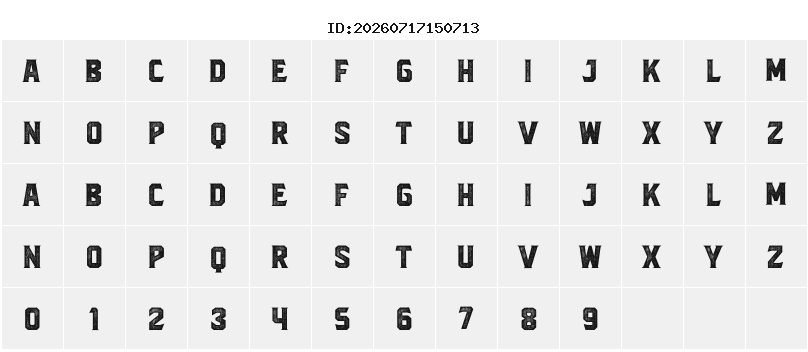
• Font Name: Blacktroops Rough
• Designer: Hendra Pratama (Mikrojihad)
About Blacktroops Rough .ttf
Blacktroops Rough .ttf is a modern, elegant sans-serif font designed for ultimate readability and visual harmony. Perfect for branding, headlines, web design, and print materials.